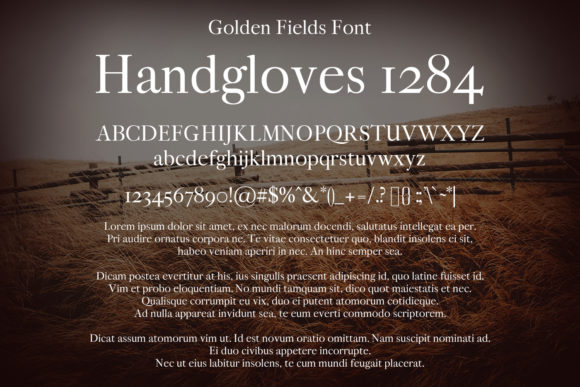
Introducing Golden Fields Font: The Ultimate Elegant Serif Choice for Designers
In the world of typography, a good font can make all the difference in elevating your design to the next level. For designers and crafters looking for a versatile and elegant serif font, look no further than Golden Fields. This stunning font boasts a minimal yet sophisticated style that lends itself perfectly to a wide range of design projects. Whether you’re working on a branding campaign, crafting a beautiful wedding invitation, or simply looking for a reliable go-to font, Golden Fields is sure to impress.
The Characteristics of Golden Fields Font
So, what makes Golden Fields font so special? Here are just a few of its key characteristics:
- Minimalist design: Golden Fields features a clean and simple design that exudes elegance and sophistication.
- Serif style: The subtle serif details add a touch of refinement and luxury to any design.
- Versatility: This font is suitable for a wide range of design projects, from logos and branding to invitations, packaging, and more.
- Easy to read: The clear and legible design makes Golden Fields perfect for body text, headlines, and titles.
Why Designers and Crafters Love Golden Fields Font
With its beautiful design and versatility, it’s no wonder that Golden Fields font has become a favorite among designers and crafters. Here are just a few reasons why:
- Effortless elegance: Golden Fields adds a touch of sophistication to any design, making it perfect for high-end branding and luxury projects.
- Easy to pair: The font’s neutral design makes it easy to pair with other fonts, allowing you to create stunning font combinations.
- Multipurpose: Whether you’re designing for print or digital, Golden Fields font is the perfect choice for a wide range of applications.
- Time-saving: With Golden Fields, you can create beautiful designs quickly and efficiently, thanks to its clear and legible design.
How to Use Golden Fields Font in Your Designs
Ready to incorporate Golden Fields font into your designs? Here are a few ideas to get you started:
- Branding and logos: Use Golden Fields to create a sophisticated logo or brand identity that exudes elegance and refinement.
- Wedding invitations and stationery: Add a touch of luxury to your wedding invitations, save-the-dates, and other stationery with Golden Fields.
- Packaging design: Use Golden Fields to create eye-catching packaging that stands out on store shelves.
- Digital design: Golden Fields is perfect for digital applications, including website headers, social media graphics, and more.
Tips for Getting the Most Out of Golden Fields Font
To make the most of Golden Fields font, here are a few tips to keep in mind:
- Experiment with font sizes: Golden Fields looks great in a range of font sizes, from large headlines to smaller body text.
- Play with font colors: Try using Golden Fields in different colors to add visual interest to your design.
- Mix and match with other fonts: Don’t be afraid to pair Golden Fields with other fonts to create a unique and eye-catching design.
In conclusion, Golden Fields font is a versatile and elegant serif font that is perfect for designers and crafters looking for a reliable go-to font. With its minimalist design, serif style, and ease of use, Golden Fields is sure to become a staple in your font collection. Whether you’re working on a branding campaign, crafting a beautiful wedding invitation, or simply looking for a font that can handle a wide range of design projects, Golden Fields is the perfect choice.